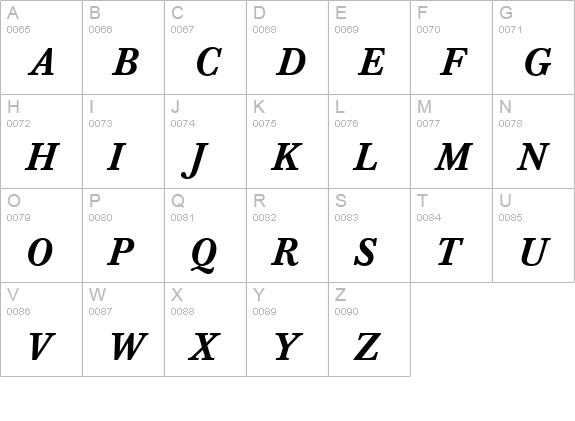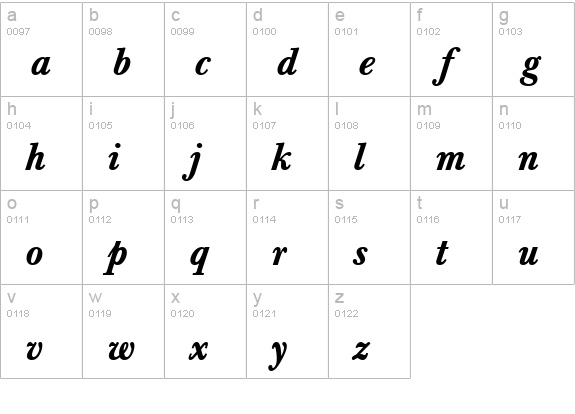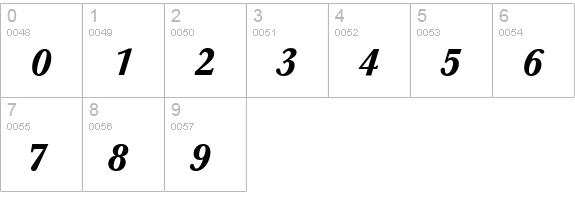
BaskervilleTMed Italic Font Details
BaskervilleTMed Italic is a distinctive, italic variant in the BaskervilleTMed typeface family \xE2\x80\x94 well suited to design and typography projects.
BaskervilleTMed Italic is a sophisticated and elegant typeface that exudes a timeless charm and refinement. The italicized version of the classic Baskerville font, BaskervilleTMed Italic features graceful curves and stylish flourishes that add a touch of sophistication to any design project. Its slender and slanted letterforms convey a sense of movement and fluidity, making it an excellent choice for adding a touch of elegance to headings, titles, and other display text. What sets BaskervilleTMed Italic apart is not just its visual appeal, but also its versatility. Whether used in print or digital media, this font shines in a variety of applications, from editorial design to branding and beyond. Its legibility and readability make it a top choice for conveying important information in a clear and stylish manner. Best of all, BaskervilleTMed Italic is available for free download at FontsMarket.com. This means that you can easily access this exquisite font and incorporate it into your projects without any cost. Don't miss out on the opportunity to enhance your designs with the timeless beauty of BaskervilleTMed Italic - download it today and elevate your typography game!